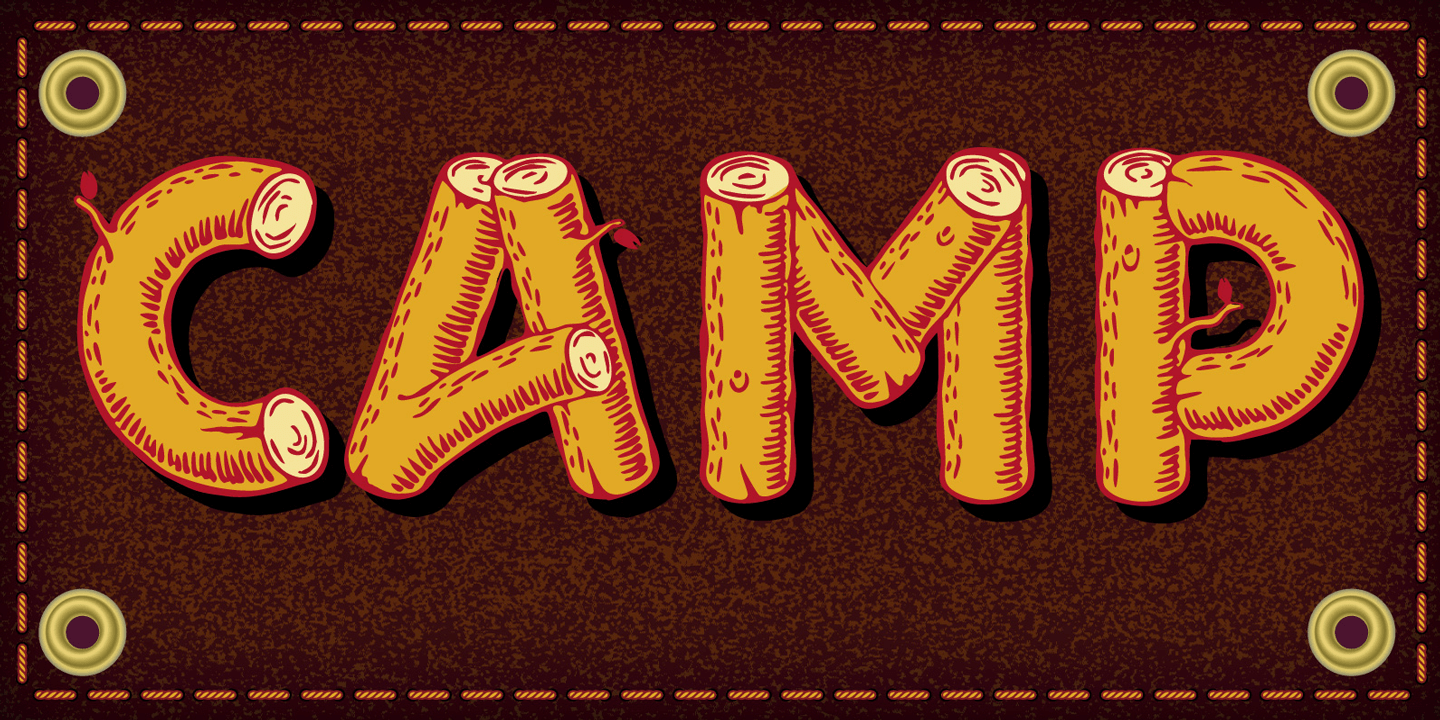
Camp
About Camp
Camp is a rough-hewn, woodsy font that gives new meaning to logging on to your computer. With engraving-like, hand-rendered details, it harkens back to frontier days and simpler times. A family of 5 fonts gives you the option of printing a single color…